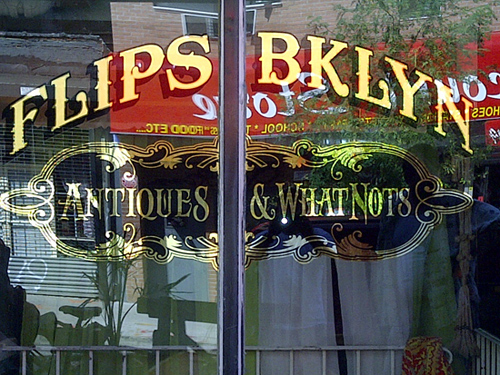
antique shop window
Just wanted to share this with you guys. I gilded a nice little antique shop window in williamsburg brooklyn ny yesterday.
couldnt get a real good shot because of the lighting.
You cant really see it in the photo but its a two tone 23k gild on the 'flips bklyn' and a straight 23k burnish on the panel.
60" wide x about 27" high. Thank You Letterhead Fonts and Mr. Jackson!
That's really nice Bob. How did you do the layout? With a mask or hand drawn? Is that a blue background behind Antiques and What Not's? I'm new to all of this and trying to pick up what ever I can. Thanks for posting this. Looks really good.
I designed the job in illustrator, and made a paint mask. (I use yellow 'PASK' paint mask, it leaves no residue.)
The job was done 'Boston Style' on location in one 9 hour day.
(But if time and $ is abundant, I prefer to use a pounce and hand paint all the black.)
I cleaned the glass, applied the mask, painted in all the black, removed the mask, varnished in the centers, had a double cappicino then gilded, had a bite to eat, backed up, and varnished.
Theres no blue just back-up black. Must be reflections. The client requested black although you can use any color you choose.
Thanks Bob. I appreciate the step by step. I don't have the benefit of using a mask so everything I have attempted has been pounced. Excuse me if it is obvious and I missed it but I am assuming this was surface painted and gilded as opposed to the reverse glass process or no?
The dark on the panel looks blue in the photo on my monitor so that is why asked about that. Just reflection I guess.
This job was glass gilded (not surface gilded) in reverse on the inside of the window.
Pounces are great to work from, they maintain that hand lettered ambience.
Paint masks will save you alot of time on the job if time is an issue.
If you dont have it already, you should get your hands on 'gold leaf techniques' fourth edition by Kent Smith.
You CAN do this work also. Just always give 110%... your absolute best. Do your homework. Experiment with different layouts and unusual fonts. Dont be afraid to customize fonts to your liking.
NEVER GIVE UP! & above all ......have fun!
You're a brave man tackling a job that size in one day. At the least, I'd want to leave it overnight before before cleaning off the excess gold.
Nicely done Bob. Thanks for the plug. I like to use technology when I can to expedite the completion and consequential remuneration. Glad to see you mention the coffee and food breaks, it really seems to help keep us from going back to it too soon. I also would prefer to plan well in advance and spend a productive 9 hour day on location.